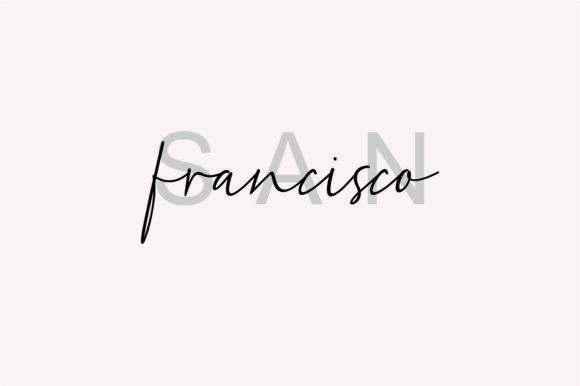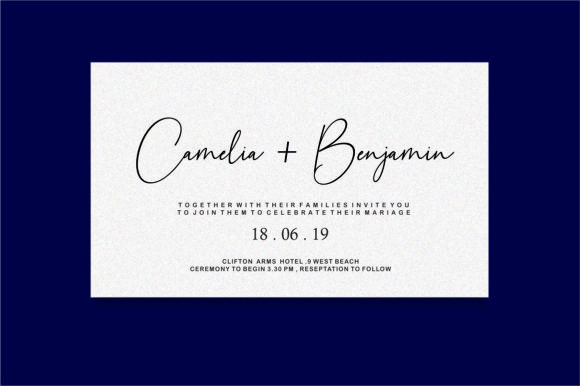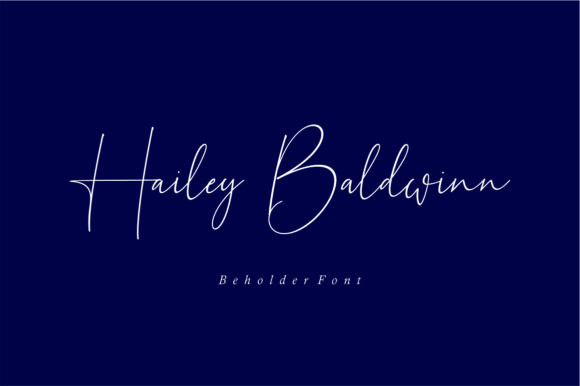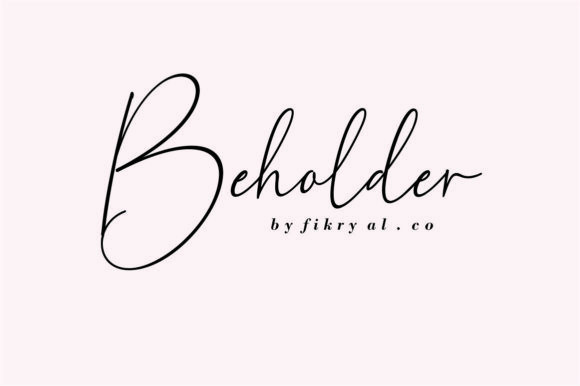
Beholder font
Beholder Font
Beholder is a beautiful and light handwritten font with a contemporary charm! It will turn any design project into true stand out!